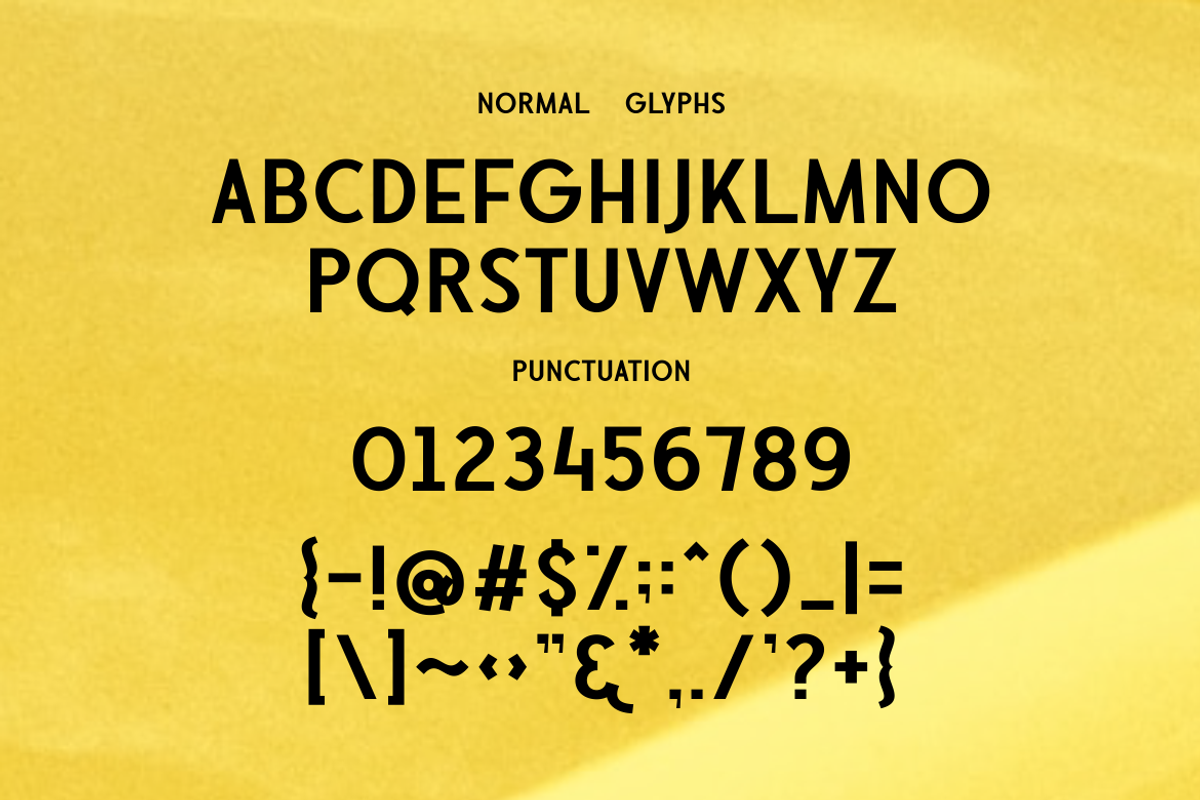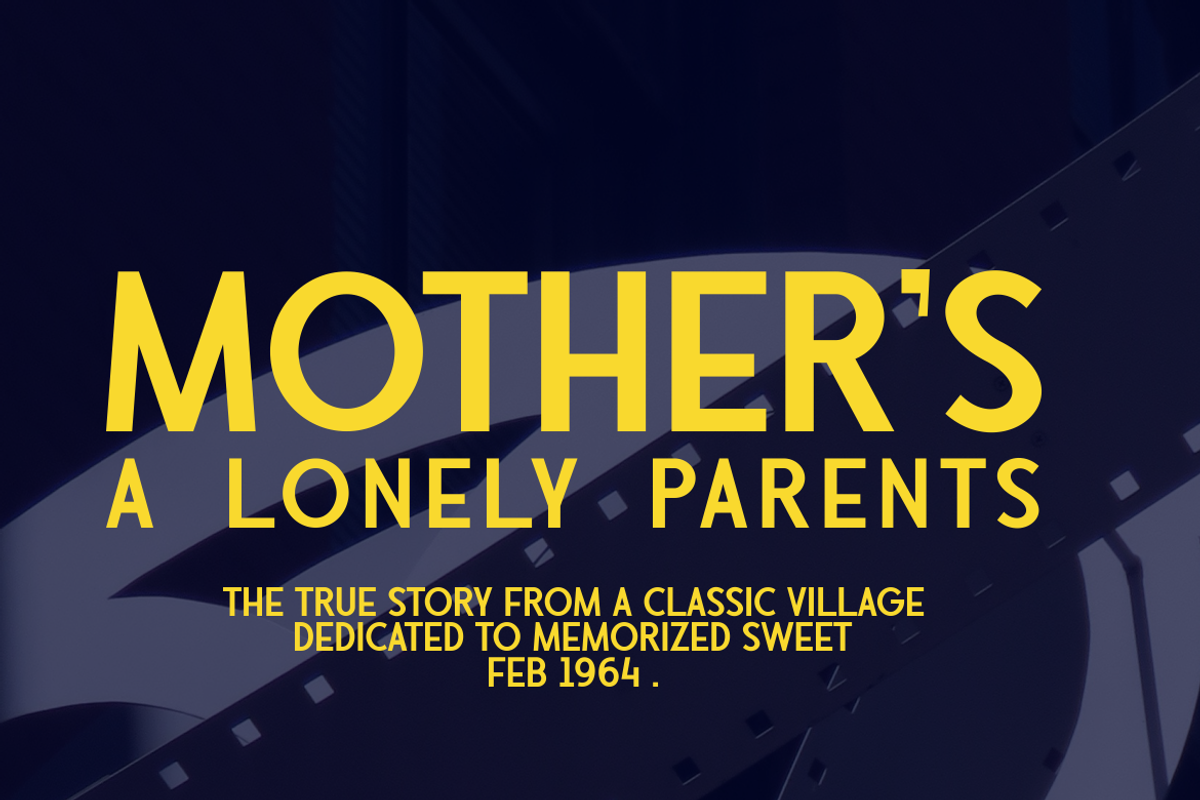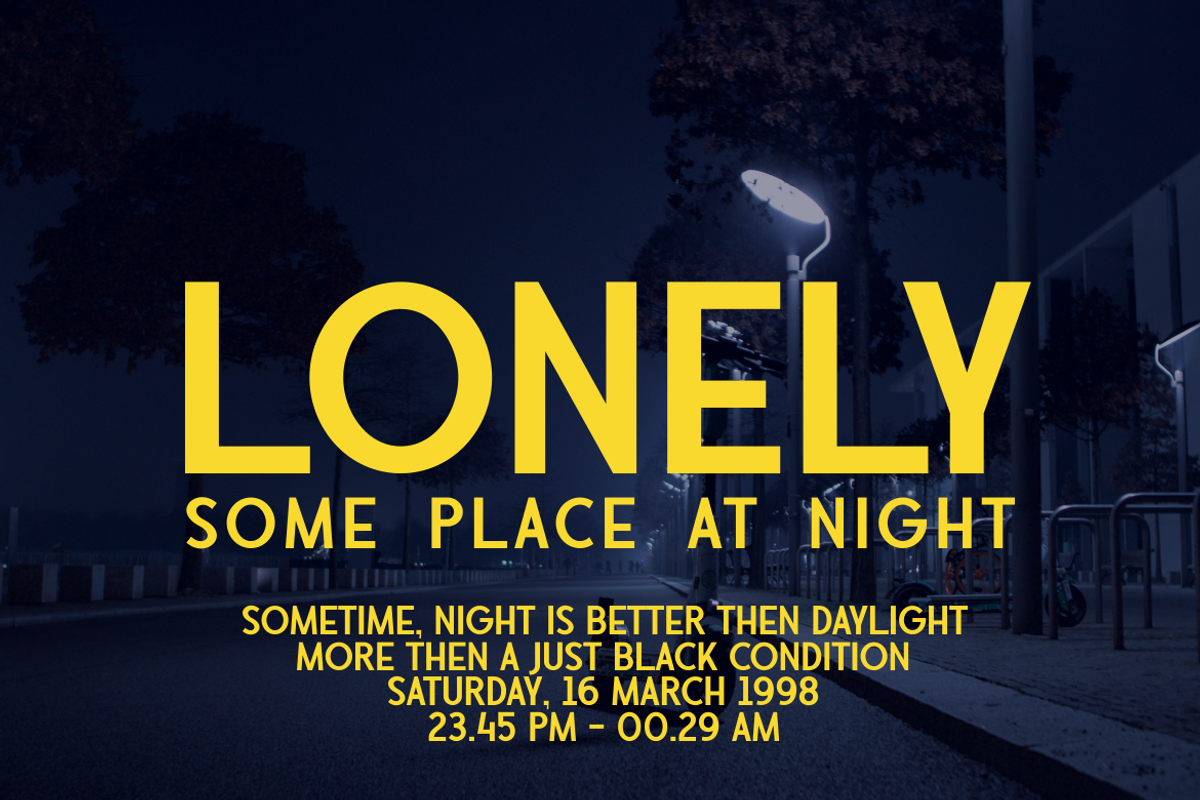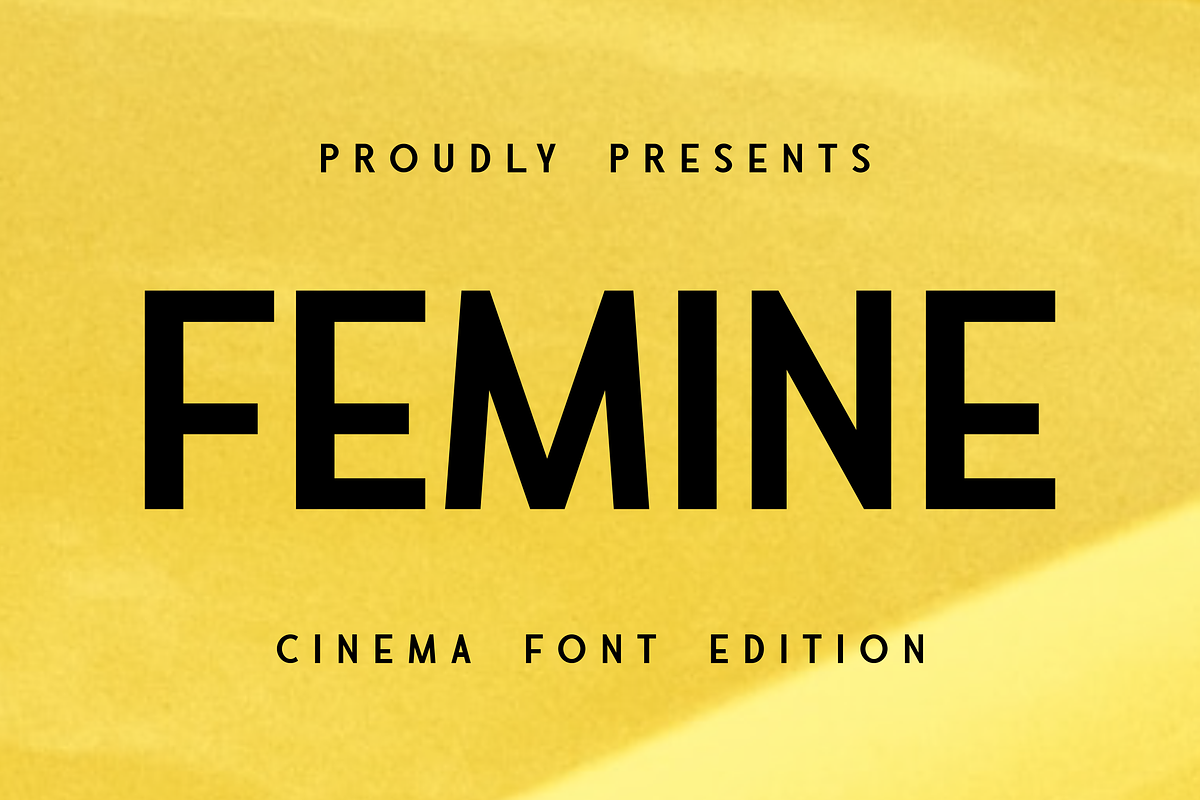
Femine Special Cinema Font
is a font that is suitable for descriptions in film titles, or anything that will be displayed in the media. very unique in making the letters. It is made slightly irregular in the center line and the thickness and thickness are different in several scales to make it look interesting and new.
This is a truly new sans serif font.